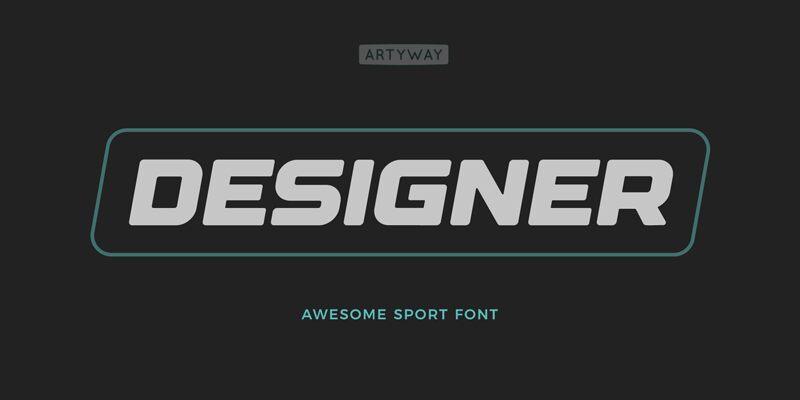
Introducing Designer font, designed by Yehor Lisnyi and featuring a bold sans serif style with wide letters. Perfect for making a statement and creating impactful projects such as posters, signs or logos.